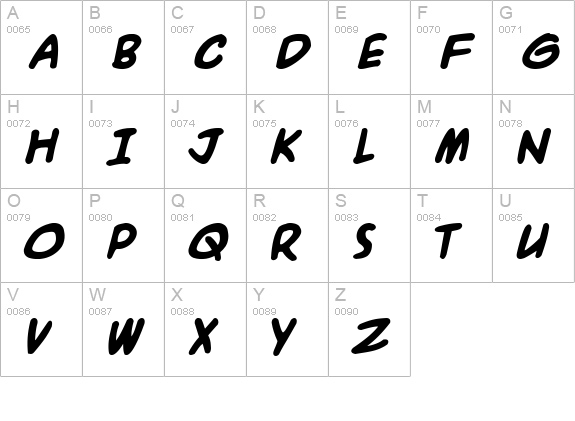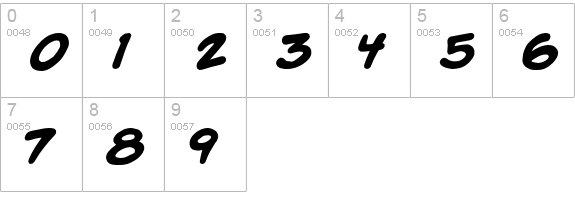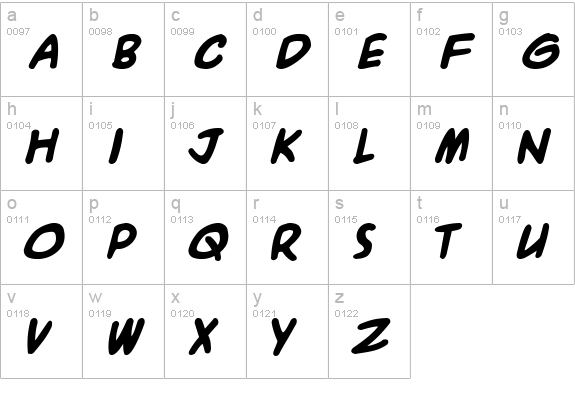
A.C.M.E. Explosive Bold Font Details
A.C.M.E. Explosive Bold is a strong, high-contrast variant in the A.C.M.E. typeface family \xE2\x80\x94 well suited to headlines, attention-grabbing titles, and strong calls-to-action.
Introducing the A.C.M.E. Explosive Bold font - a dynamic and powerful typeface that will make your designs stand out with a bang! This explosive font exudes energy and impact, perfect for grabbing attention and making a statement. Its bold and striking appearance is guaranteed to make your text pop and leave a lasting impression on your audience. And the best part? A.C.M.E. Explosive Bold is available for free download at FontsMarket.com! Yes, you read that right - you can unleash the explosive power of this font in your projects without spending a dime. So why wait? Download A.C.M.E. Explosive Bold today and add a blast of creativity to your designs!